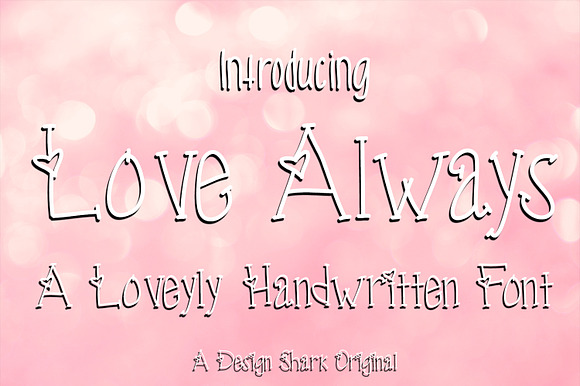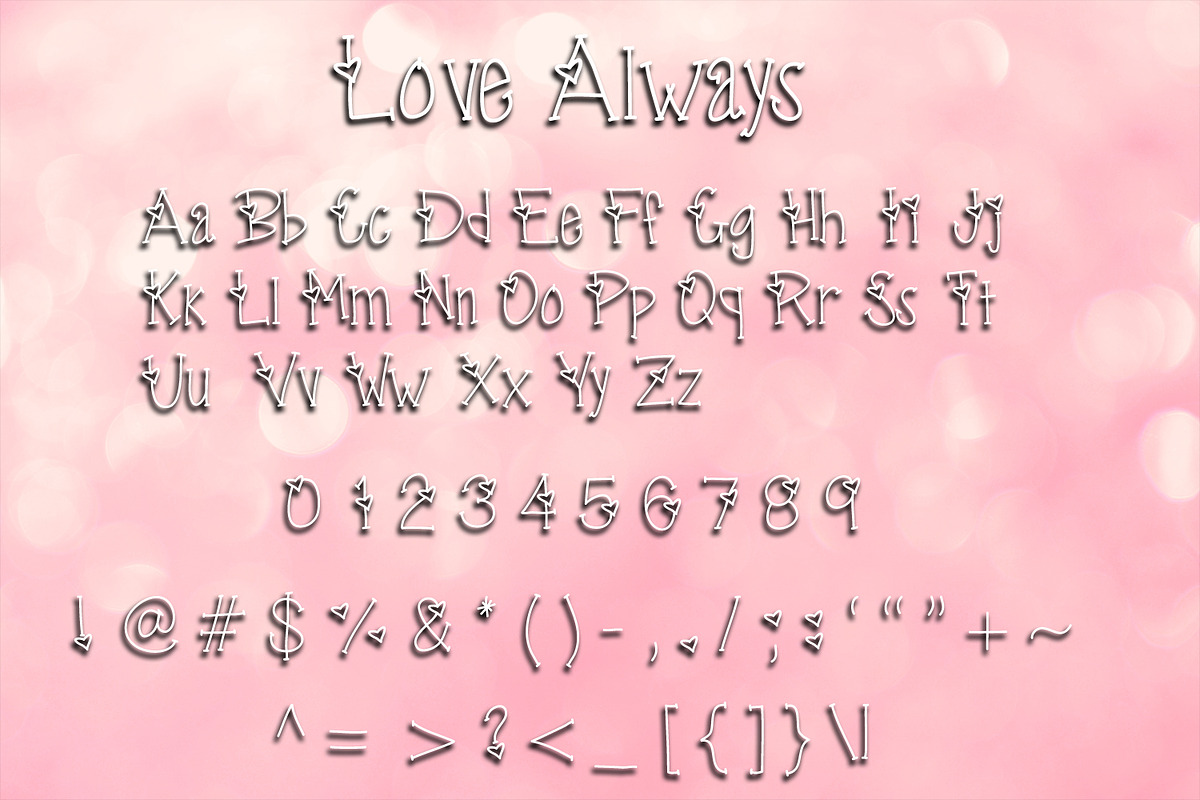
Love Always Handwritten Font
Why Love Always Handwritten Font is worth a look
Love Always Handwritten Font by crystal.baier fits naturally into Branding, posters, packaging, typography.